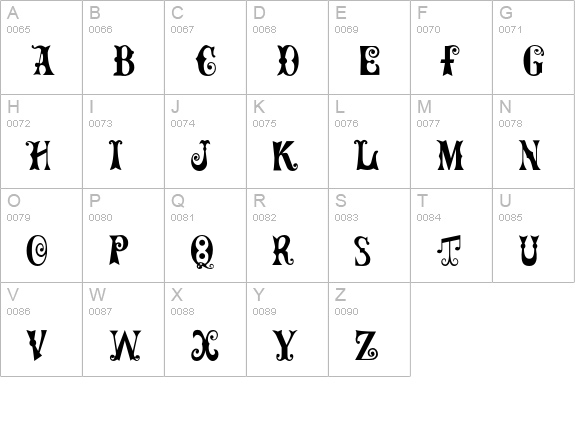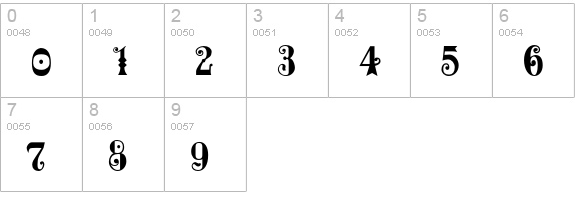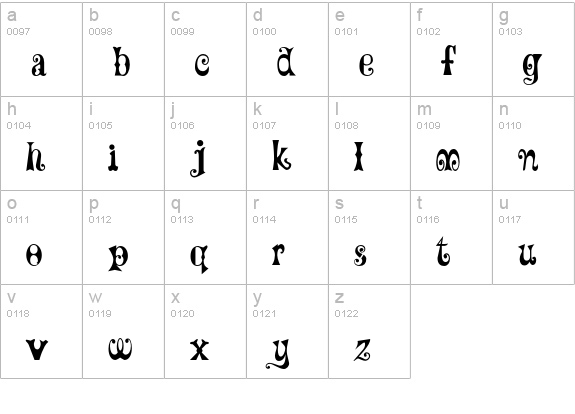
MardiGras Font Details
Introducing MardiGras font, a captivating and vibrant typeface that embodies the spirit of celebration and joy! With its whimsical and playful design, this font is the perfect choice for any project that needs a touch of festive flair. MardiGras font features an array of decorative elements, including ornate swashes, intricate flourishes, and charming embellishments. Each letter is carefully crafted with attention to detail, ensuring a visually stunning result. Not only does MardiGras font add a delightful touch to your designs, but it also comes with the added bonus of being freely available to download at FontsMarket.com. Yes, you read that right - this incredible font can be yours, completely free of charge! Whether you're creating invitations for a Mardi Gras-themed party, designing posters for a carnival event, or adding a touch of whimsy to your personal projects, MardiGras font is sure to make a lasting impression. Its versatility allows it to shine in a variety of contexts, from digital designs to print materials. So why wait? Embrace the festive spirit and download MardiGras font today, completely free of charge, at FontsMarket.com. Let your creativity soar and bring your designs to life with this captivating and vibrant typeface. Celebrate in style with MardiGras font!